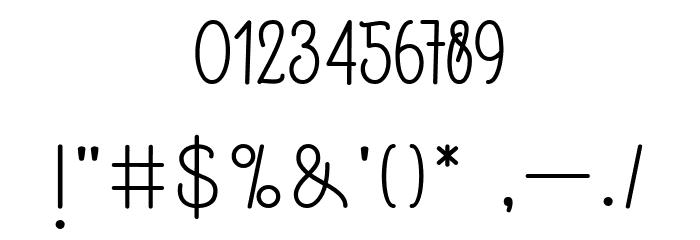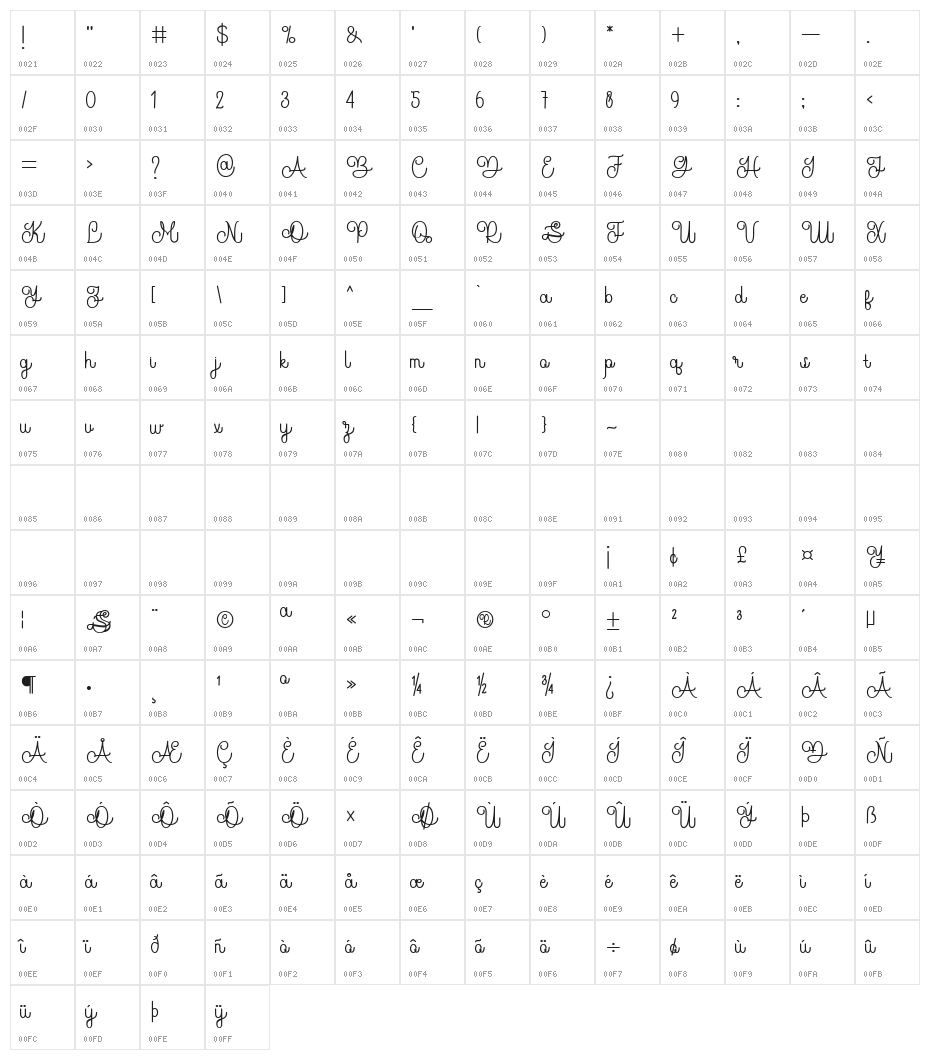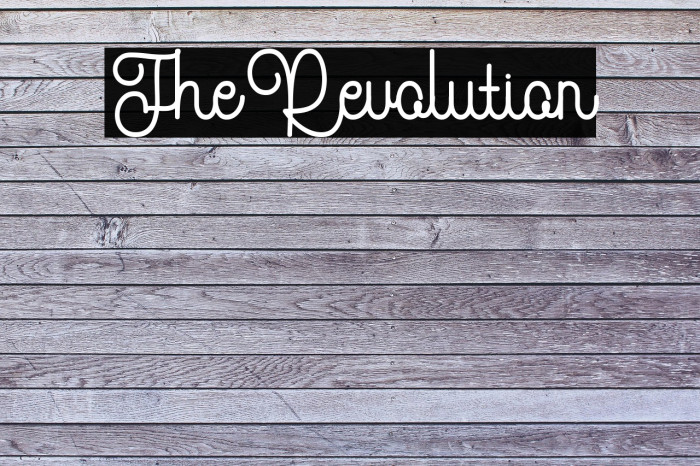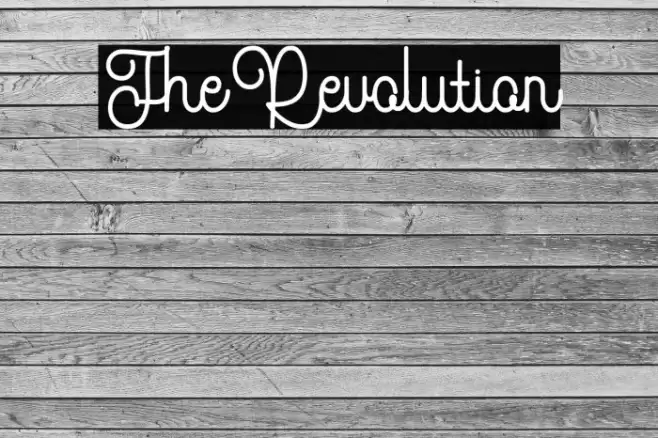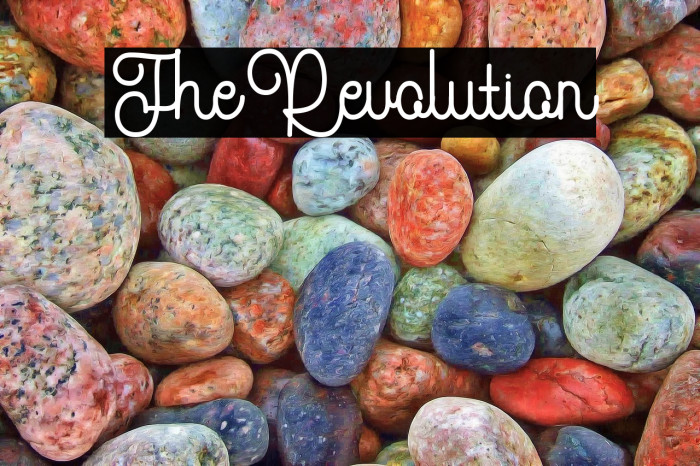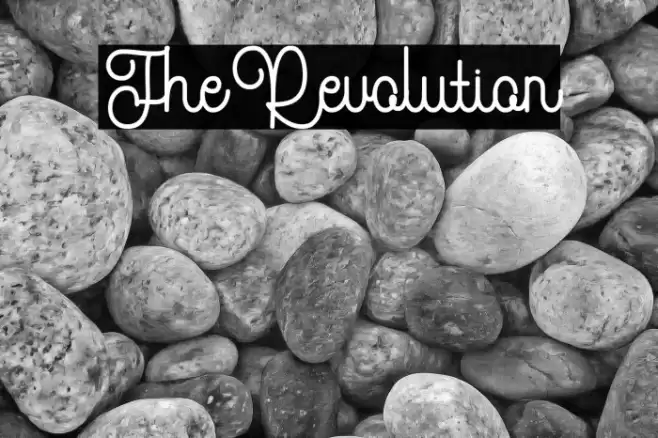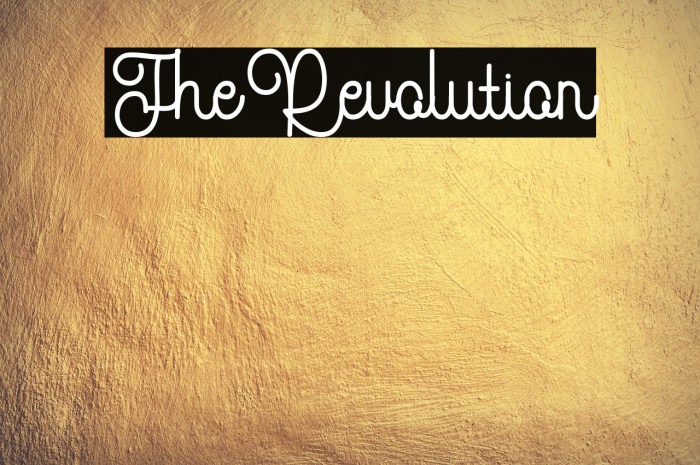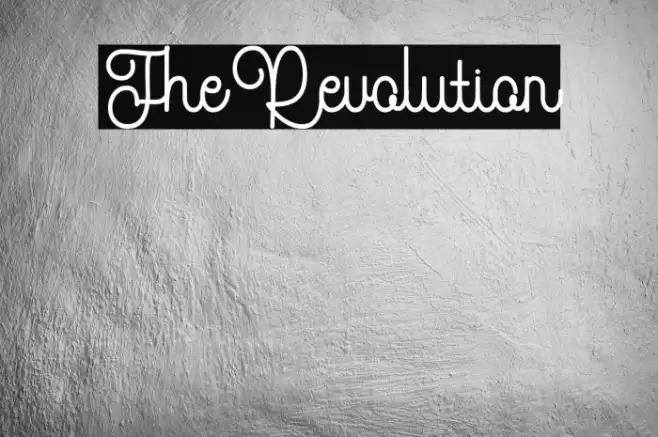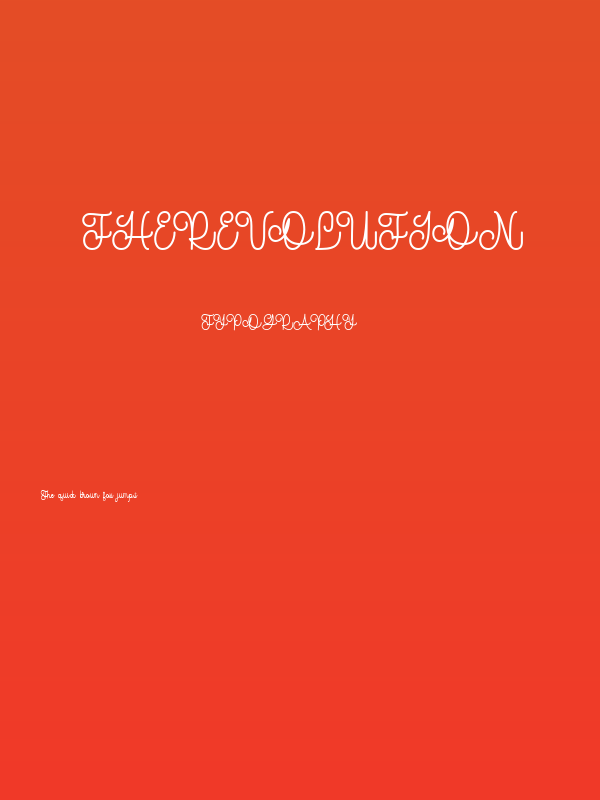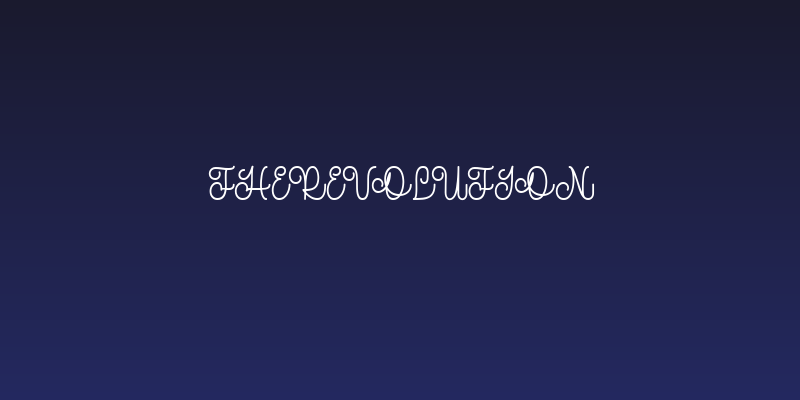
TheRevolution Font
TheRevolution Description
This font features a playful and whimsical script style, characterized by its looping and interconnected letterforms. The uppercase letters are particularly ornate, with elaborate swirls and curls that give a sense of movement and fluidity. The lowercase letters maintain a consistent style, with smooth curves and a slightly informal appearance. Numbers and special characters are designed to match the overall aesthetic, ensuring a cohesive look. The font's unique style makes it stand out, offering a creative and artistic flair.
| Proposed Projects | Ideal for creative projects such as invitations, greeting cards, and branding materials that require a touch of elegance and whimsy. |